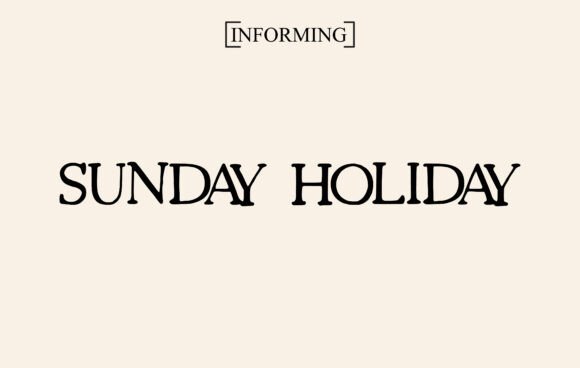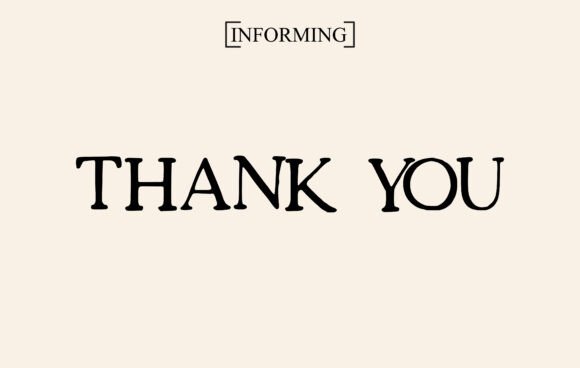
Discover the Heavenly Beauty of Angelic Whisper Font
Are you tired of using the same old fonts for your creative projects? Look no further! Introducing the Angelic Whisper Font, a stunning typeface designed to elevate your designs to new heights. With its elegant and legible style, this font is perfect for a wide range of applications, from magazine headlines to wedding invitations, and everything in between.
A Font Designed to Inspire
The Angelic Whisper Font is crafted to be a true favorite among designers and crafters. Its unique and sophisticated style has the potential to take your creative ideas to the highest level, making it an excellent addition to your font collection. Whether you’re working on a branding project, social media graphics, or t-shirt designs, this font is sure to impress.
One of the standout features of the Angelic Whisper Font is its versatility. It looks great as both title and body text, making it perfect for a variety of design applications. Here are some ideas to get you started:
- Magazine headlines: Add a touch of elegance to your magazine spreads with the Angelic Whisper Font.
- T-shirts: Create eye-catching designs for t-shirts, hoodies, and other apparel.
- Social media: Elevate your social media graphics with this beautiful font.
- Branding: Use the Angelic Whisper Font to create a cohesive brand identity.
- Wedding invitations: Add a touch of romance to your wedding invitations and stationery.
- Cards: Create beautiful greeting cards for special occasions.
Why Choose Angelic Whisper Font?
So, what sets the Angelic Whisper Font apart from other fonts? Here are just a few reasons why designers and crafters love this font:
- Legibility: The Angelic Whisper Font is designed to be easy to read, making it perfect for body text and headlines.
- Elegance: This font exudes sophistication and elegance, making it perfect for high-end designs.
- Flexibility: Use the Angelic Whisper Font for a wide range of design applications, from digital to print.
Tips for Using Angelic Whisper Font
To get the most out of the Angelic Whisper Font, here are a few tips to keep in mind:
- Experiment with font sizes: The Angelic Whisper Font looks great in a variety of font sizes, from large headlines to smaller body text.
- Pair it with other fonts: Try pairing the Angelic Whisper Font with other fonts to create a unique and interesting design.
- Use it consistently: Use the Angelic Whisper Font consistently throughout your design to create a cohesive look.